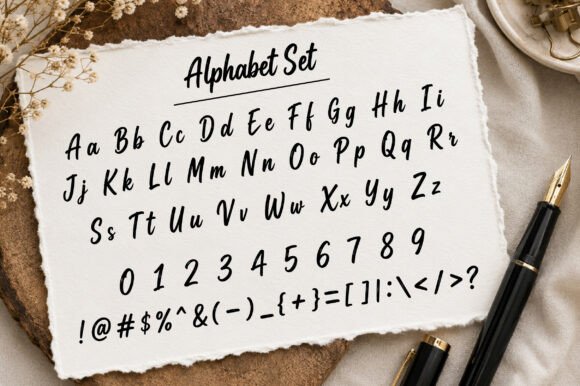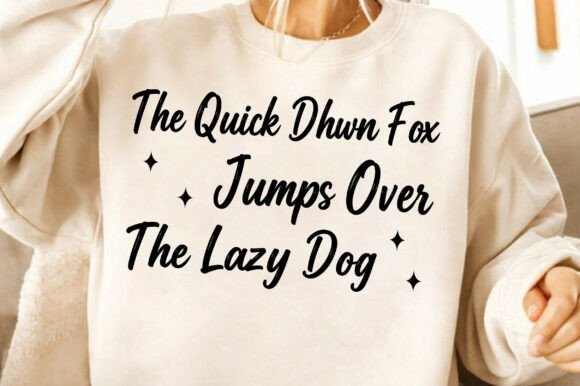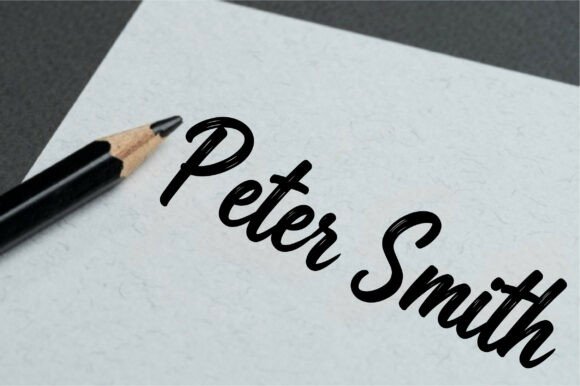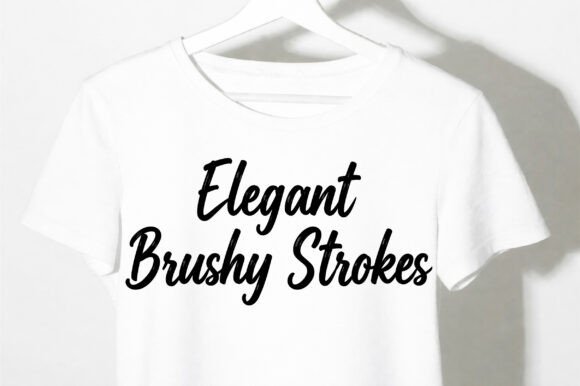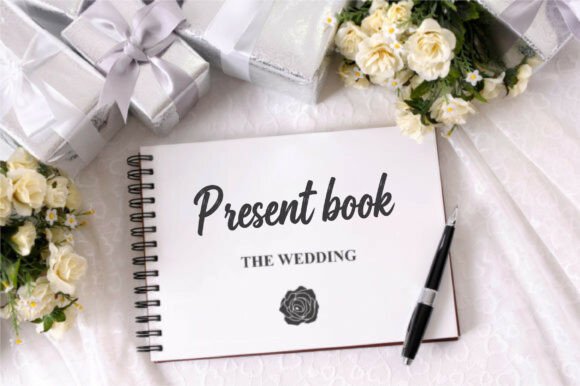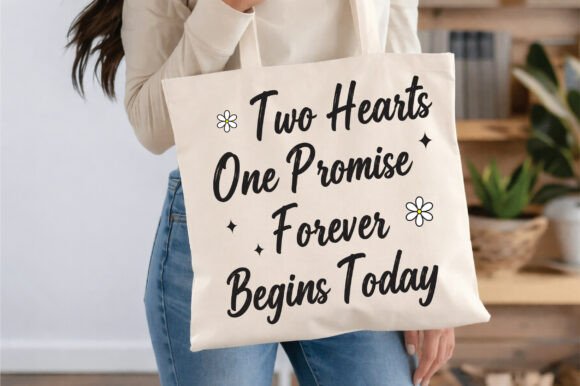
Elegant Brushy Strokes Font: Elevate Your Designs with Sophistication
In the world of typography, a well-crafted font can make all the difference in transforming a design from ordinary to extraordinary. Introducing Elegant Brushy Strokes, a modern handwritten brush font that exudes style, sophistication, and a natural feel. This versatile font is perfect for designers and crafters looking to add a touch of elegance to their creative projects.
The Characteristics of Elegant Brushy Strokes
Elegant Brushy Strokes boasts smooth, fluid brush strokes that give it a distinctive, hand-painted look. The font features elegant curves and subtle imperfections that mimic the natural movement of a brush, adding a level of authenticity to your designs. Its modern and stylish feel makes it an excellent choice for a wide range of applications, from logos and branding to invitations, social media posts, and more.
Whether you’re a professional designer or a crafty DIY enthusiast, Elegant Brushy Strokes is an excellent addition to your font collection. This versatile font can be used for:
- Logos and Branding: Create a lasting impression with a unique and memorable logo that showcases your brand’s personality.
- Invitations: Add a touch of elegance to your wedding invitations, party invites, or any other special occasion.
- Social Media Posts: Elevate your social media game with eye-catching graphics and typography that sets you apart.
- Posters and Flyers: Grab attention with bold, stylish text that’s sure to leave a lasting impression.
- Quotes and Typography: Add a touch of sophistication to your inspirational quotes, sayings, and phrases.
- Packaging: Stand out on store shelves with beautifully designed packaging that reflects your brand’s personality.
Why Choose Elegant Brushy Strokes?
With so many fonts available, why choose Elegant Brushy Strokes? Here are just a few reasons why this font stands out:
- Unique and Memorable: Elegant Brushy Strokes is a one-of-a-kind font that will help your designs stand out from the crowd.
- Highly Versatile: This font can be used for a wide range of design projects, from digital to print.
- Easy to Read: Despite its elegant, cursive feel, Elegant Brushy Strokes is surprisingly easy to read, making it perfect for body text and headlines.
- Scalable: This font is designed to look great at any size, from small captions to large headlines.
Tips for Using Elegant Brushy Strokes
To get the most out of Elegant Brushy Strokes, here are a few tips to keep in mind:
- Experiment with Colors: Take advantage of the font’s elegant feel by pairing it with a range of colors that complement your design.
- Play with Ligatures: Elegant Brushy Strokes features beautiful ligatures that can add an extra touch of sophistication to your designs.
- Mix and Match: Combine Elegant Brushy Strokes with other fonts to create a unique and visually appealing typography.
Elegant Brushy Strokes is a modern handwritten brush font that offers a perfect blend of style, sophistication, and versatility. Whether you’re a designer, crafty DIY enthusiast, or simply someone looking to elevate their creative projects, this font is an excellent choice. With its smooth brush strokes, elegant curves, and natural feel, Elegant Brushy Strokes is sure to become a staple in your font collection.